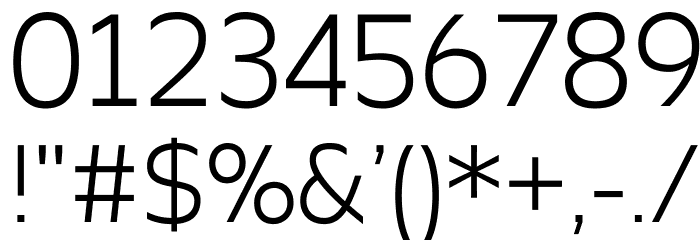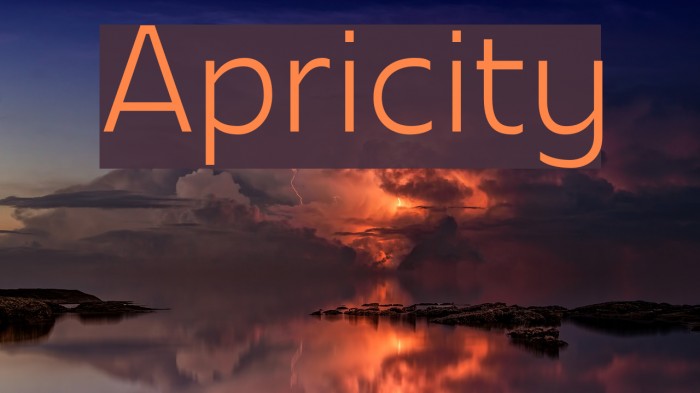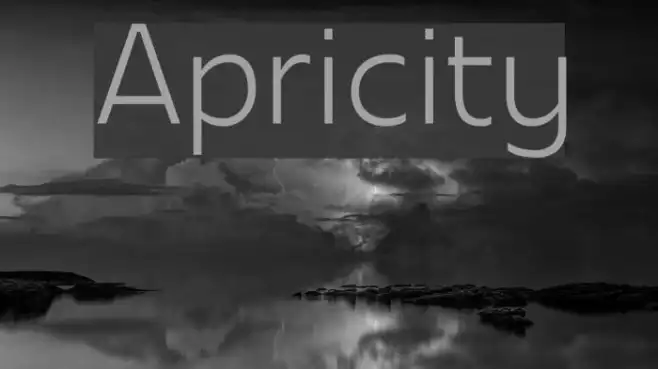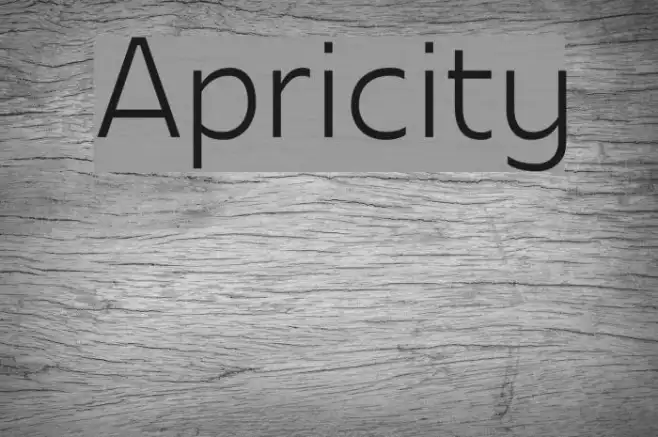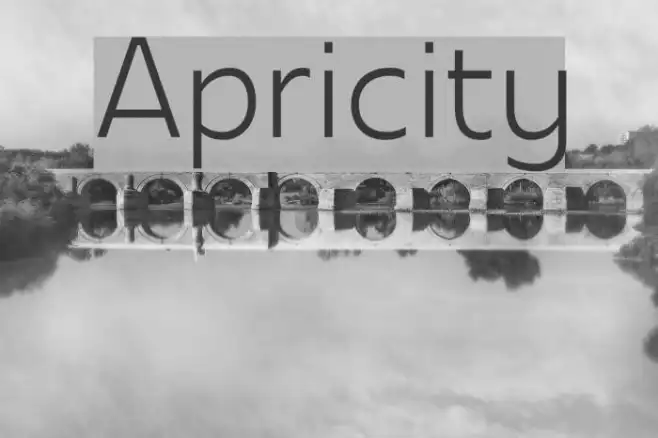
Apricity Font
This font features a clean and modern sans-serif design, characterized by its geometric shapes and uniform stroke widths. The uppercase letters are bold and assertive, while the lowercase letters maintain a consistent and harmonious appearance. The numerals are clear and easily distinguishable, making them suitable for a variety of applications. The special characters are well-integrated, maintaining the overall aesthetic of the font. Its simplicity and clarity make it highly legible, even at smaller sizes, and its modern style is versatile for both digital and print media.
- Proposed Projects: Ideal for branding, web design, advertising, and editorial layouts.